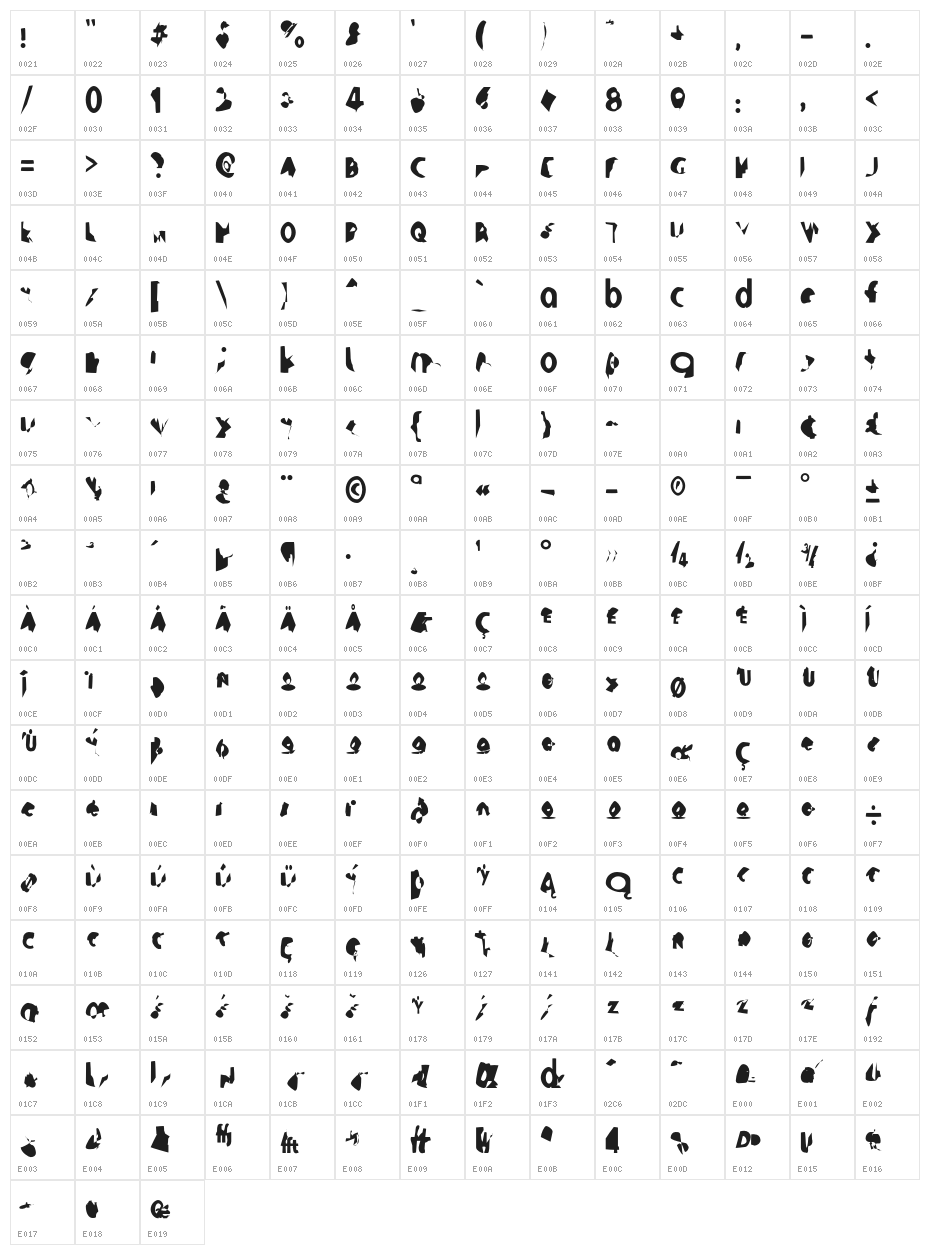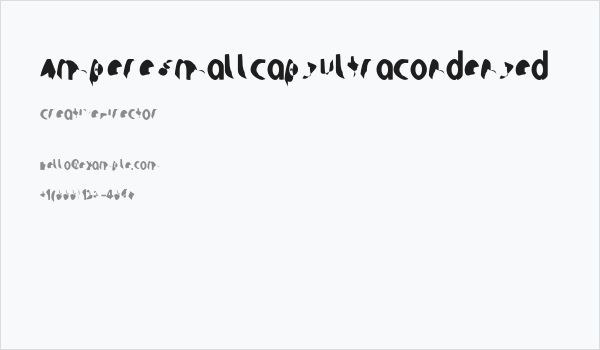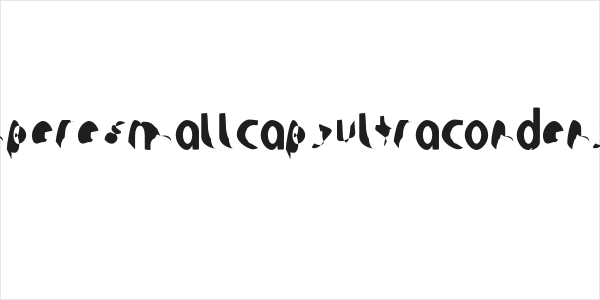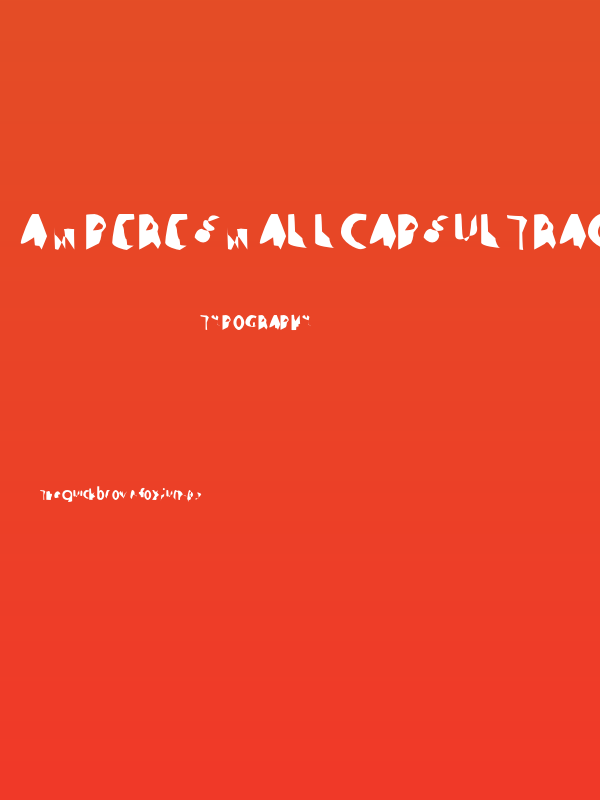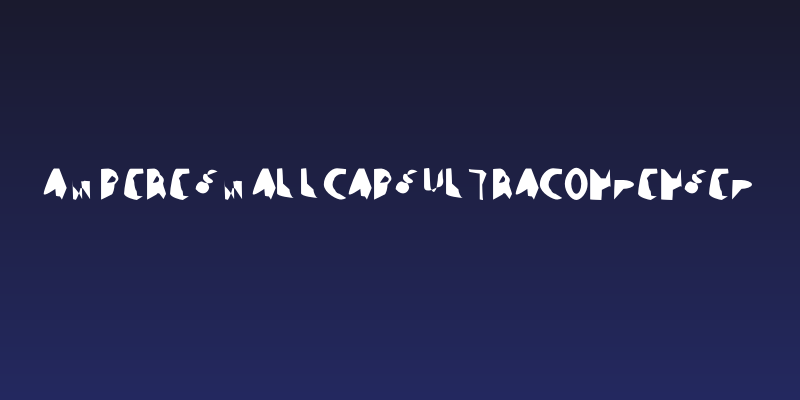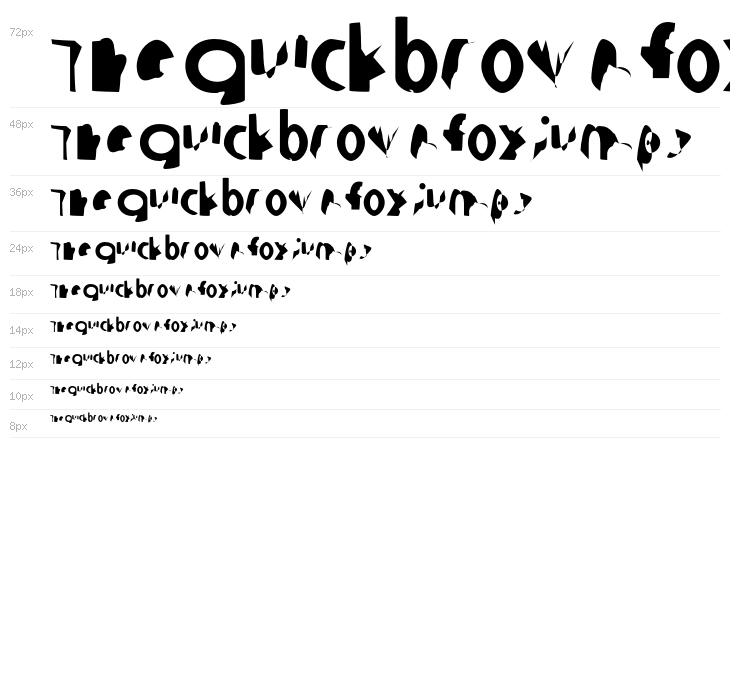
Ampere SmallCaps UltraCondensed Font
Ampere SmallCaps UltraCondensed Description
This font features a highly stylized and fragmented design, with each character appearing as if it has been shattered or cut into pieces. The uppercase and lowercase letters maintain a consistent ultra-condensed form, giving the font a unique and edgy appearance. The numbers and special characters follow the same design principle, ensuring uniformity across all glyphs. The overall aesthetic is bold and striking, making it suitable for attention-grabbing headlines or artistic projects. The irregular shapes and sharp angles contribute to a modern and avant-garde style.
| Overall Style | Modern, Avant-garde |
| Use Case | Headlines, Artistic projects, Branding |
| Proposed Projects | Ideal for modern art projects, edgy branding, album covers, or any design requiring a bold statement. |